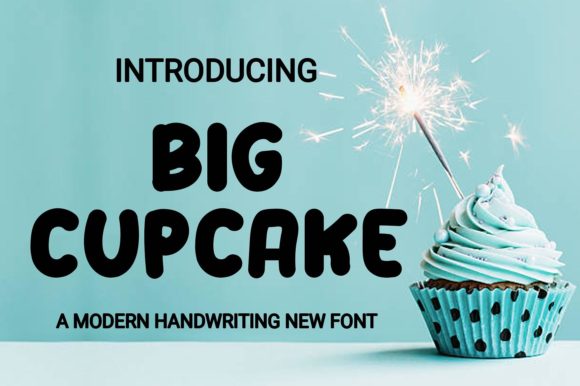
The Sweetest Font: A Deep Dive into Big Cupcake
I’ll never forget the time I was working on a branding project for a bakery, and I just couldn’t find the perfect font. I wanted something that would make their logo stand out, something sweet and playful. That’s when I stumbled upon Big Cupcake, a cute and casual display font that instantly caught my eye. In this article, I’ll share my experience with Big Cupcake, its features, and how to make the most of it in your designs.
- ✨ Big Cupcake is ridiculously cute and casual, making it perfect for creative projects.
- ✅ Its playful vibe works well for various purposes, such as logos, headings, t-shirts, and more.
- 💫 The font has a unique character that will make your designs stand out.
- 🎨 It’s versatile and can be used for both digital and print projects.
While Big Cupcake is an amazing font, there are a few things to keep in mind:
- ⚠️ It might not be the best choice for body text or long paragraphs, as it’s a display font meant for headlines.
- 🤔 Some characters might not work well in all contexts, so be sure to test the font thoroughly.
The Story Behind Big Cupcake
Big Cupcake was designed with one goal in mind: to create a font that’s both cute and versatile. The designer wanted to craft a font that would make any project stand out, whether it’s a logo, a poster, or a social media graphic. Inspired by the world of baking and desserts, Big Cupcake is a font that’s sure to satisfy your creative cravings.
Q: Is Big Cupcake a script font?
A: No, Big Cupcake is a display font with a playful, casual vibe. While it has some script-like elements, it’s not a traditional script font.